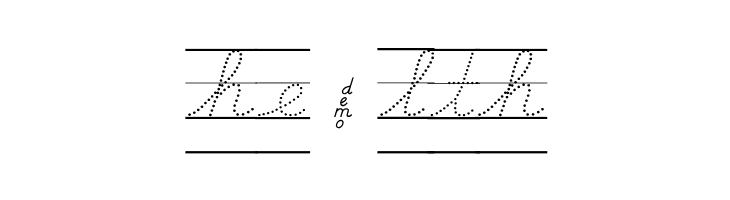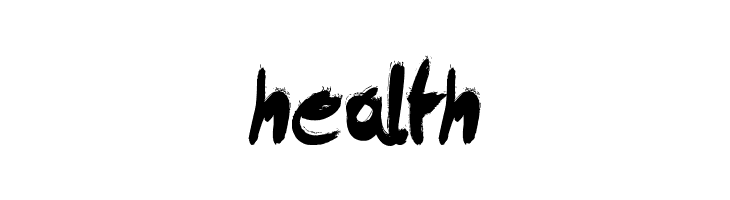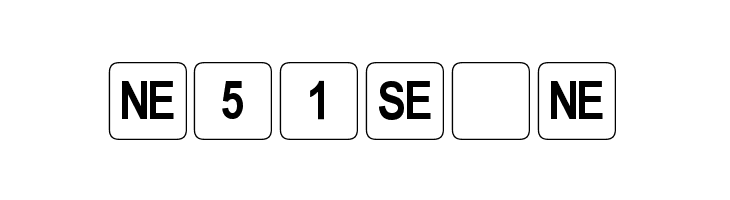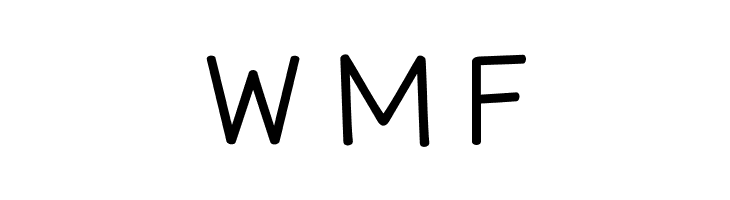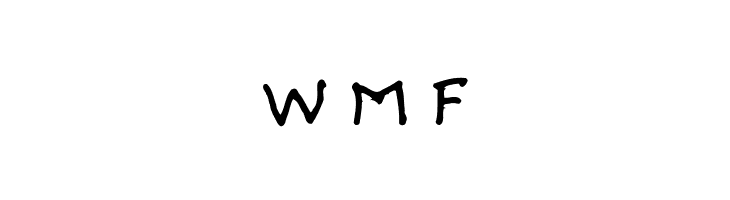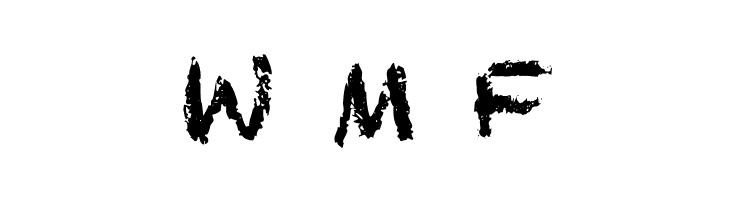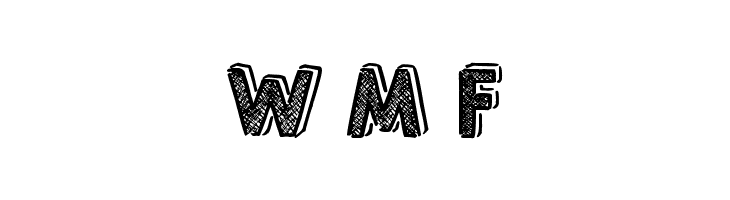
An abstract font combining geometric shapes with fluid, organic lines.
A whimsical set of cartoonish car illustrations with a playful, hand-drawn style.
A decorative font styled like currency symbols and denominations.
A playful, rounded handwritten font perfect for child-friendly designs.
A playful, handwritten-style font with a childlike, informal appearance.
A playful, handwritten font with irregular, organic strokes.
A whimsical, handwritten font with a playful and casual appearance.
A playful, hand-drawn font with thin, irregular strokes and dot connections.
A whimsical, hand-drawn font with a constellation-like design.
A playful, handwritten font with a chalkboard style.
A playful, handwritten font with a whimsical and casual style.
A playful, casual handwritten font with smooth, flowing lines.
A playful and whimsical set of hand-drawn doodles with bold outlines.
A pictorial display font featuring various telephone and communication icons.
A playful, flowing cursive font with a nostalgic, handwritten style.
A dotted, playful font with evenly spaced dots forming character outlines.
A specialized font for harp pedal notation with clear, structured symbols.
A classic serif font with elegant numerals and musical notation symbols.
A pictographic font for woodwind tablature notation.
Bold, high-contrast music notation font for rhythmic elements.
A decorative series of stylized face graphics replacing traditional characters.
Portrait-based decorative font using U.S. presidents' faces as glyphs.
A playful font styled like letter tiles from a word game, featuring bold characters within bordered squares.
A playful, game-inspired font with characters on square tiles.
A bold, textured, hand-drawn font with a playful, three-dimensional appearance.
A flag-themed decorative display font with each character as a distinct flag.